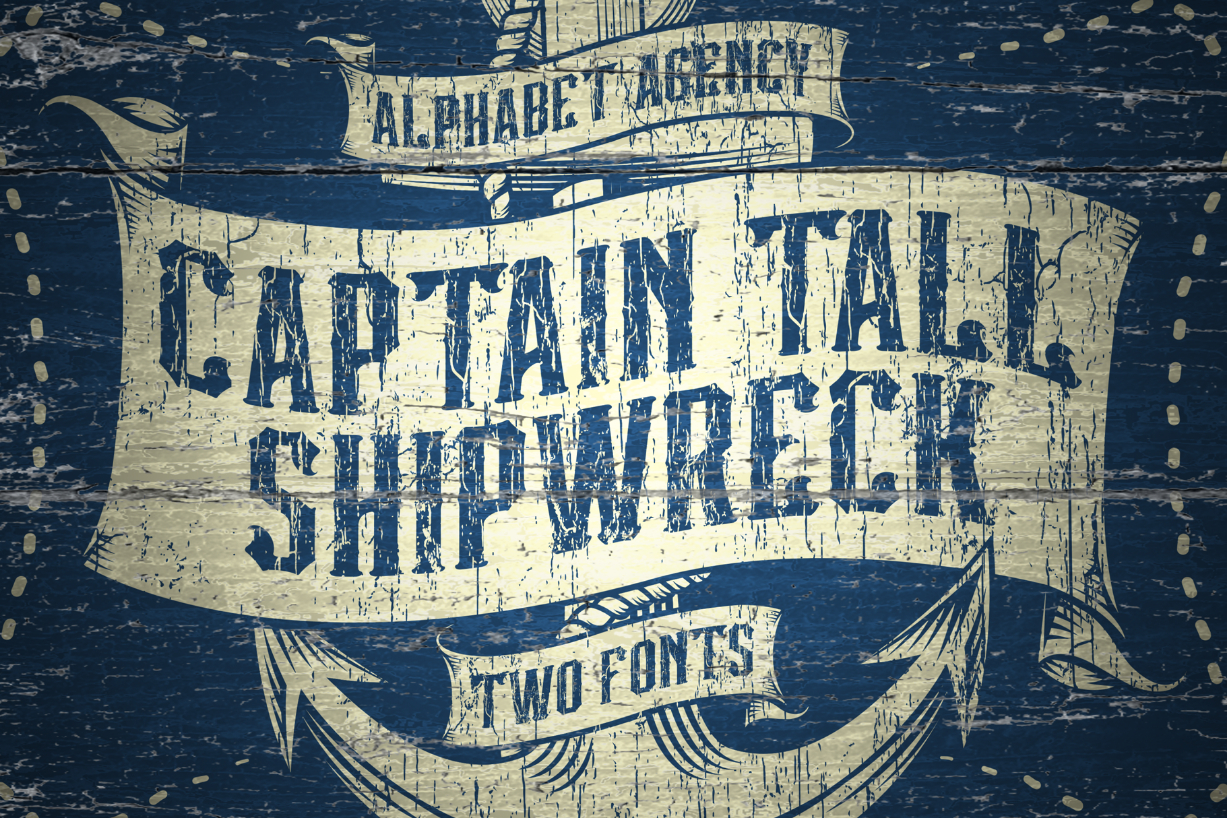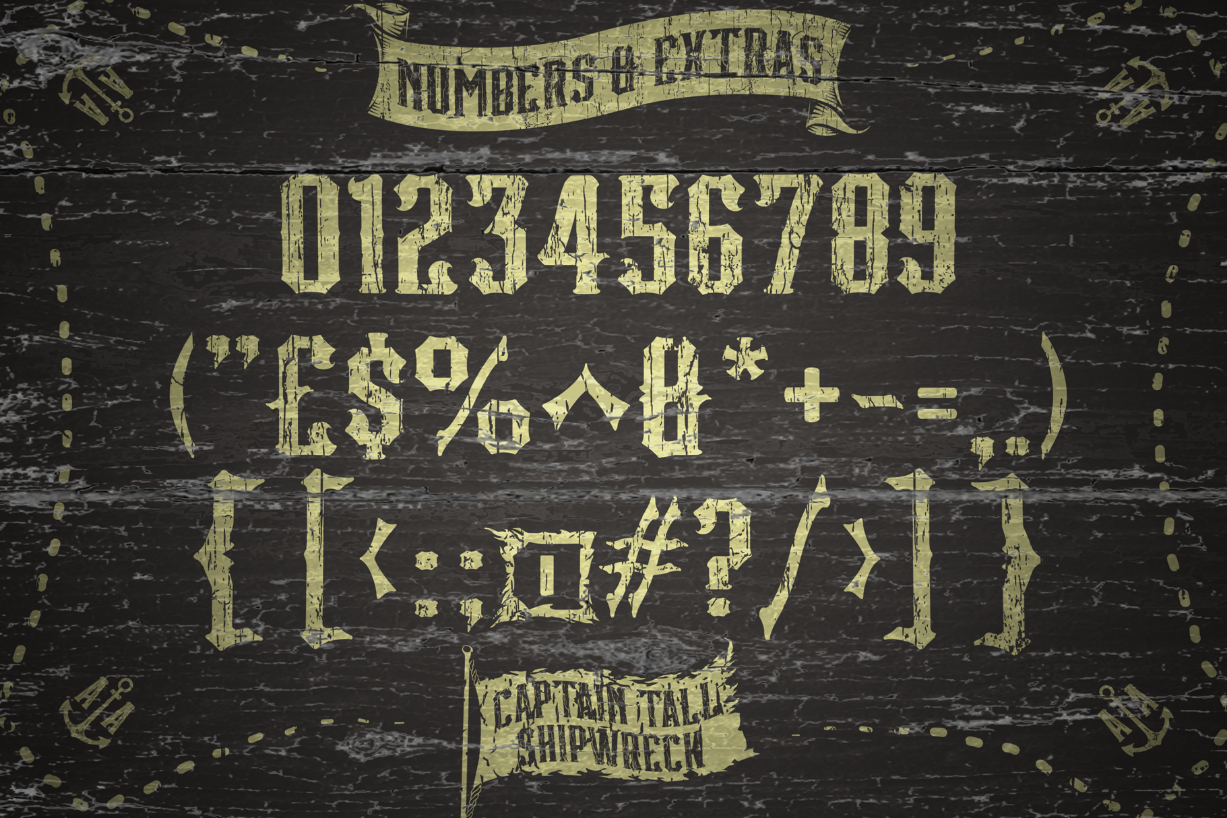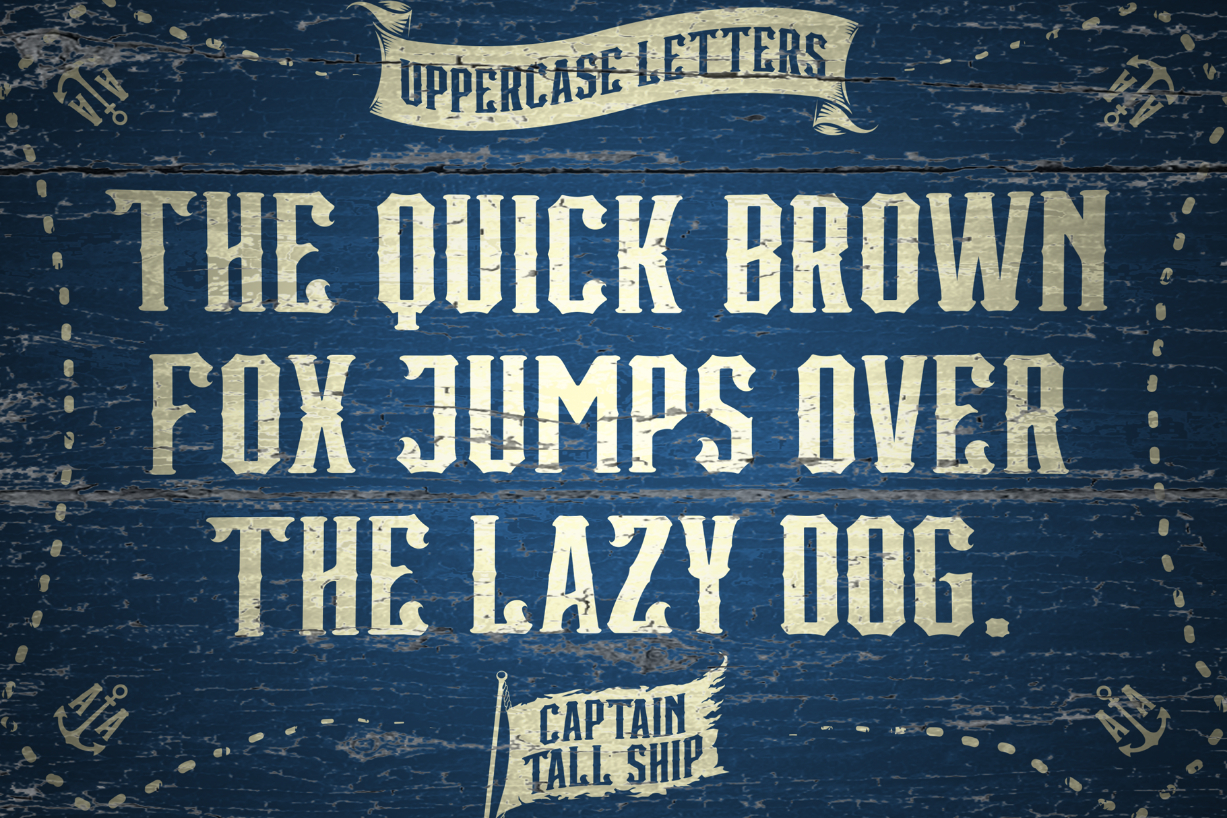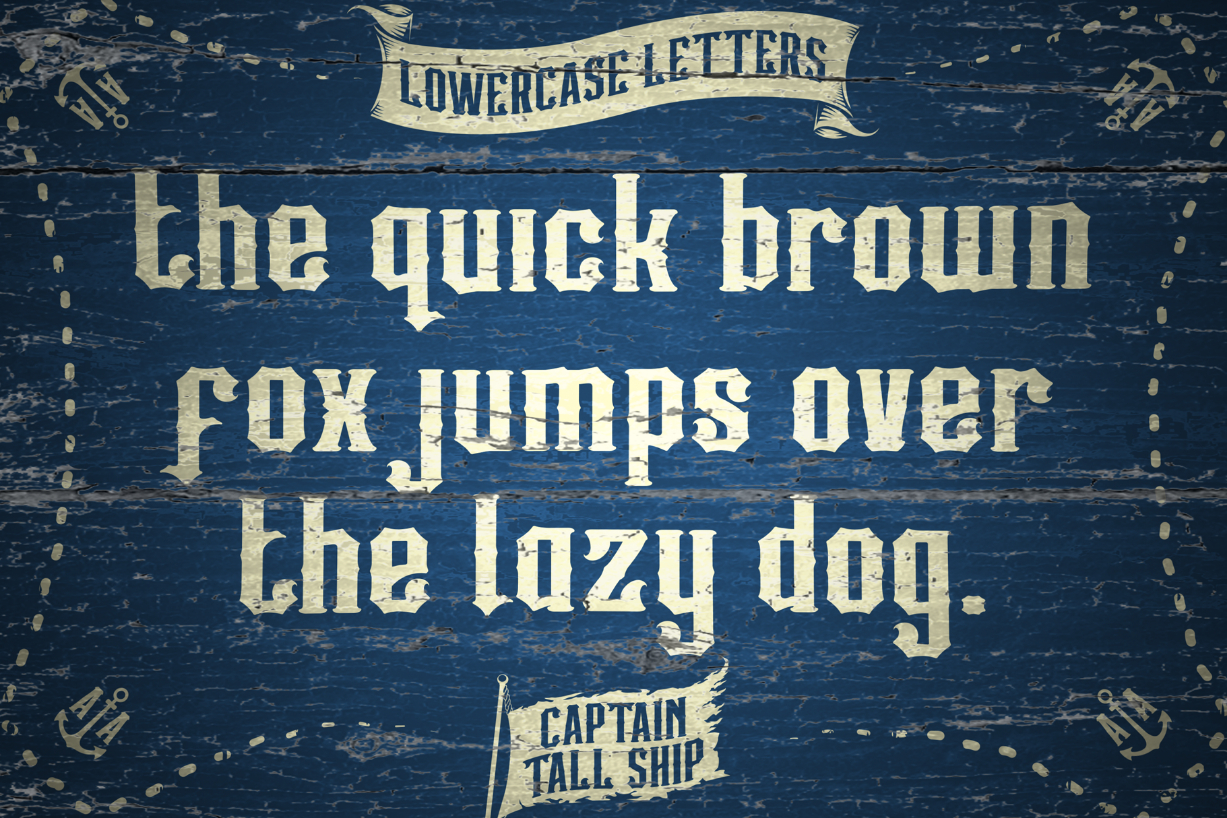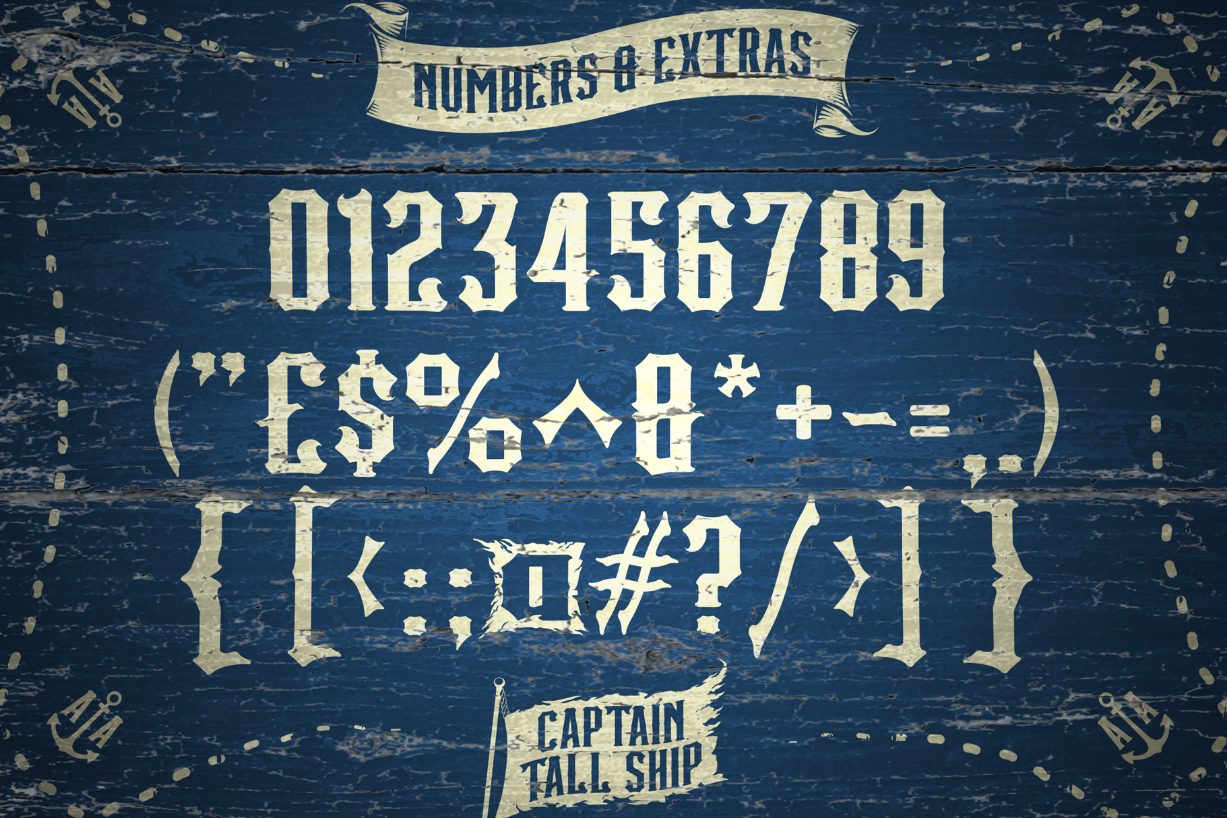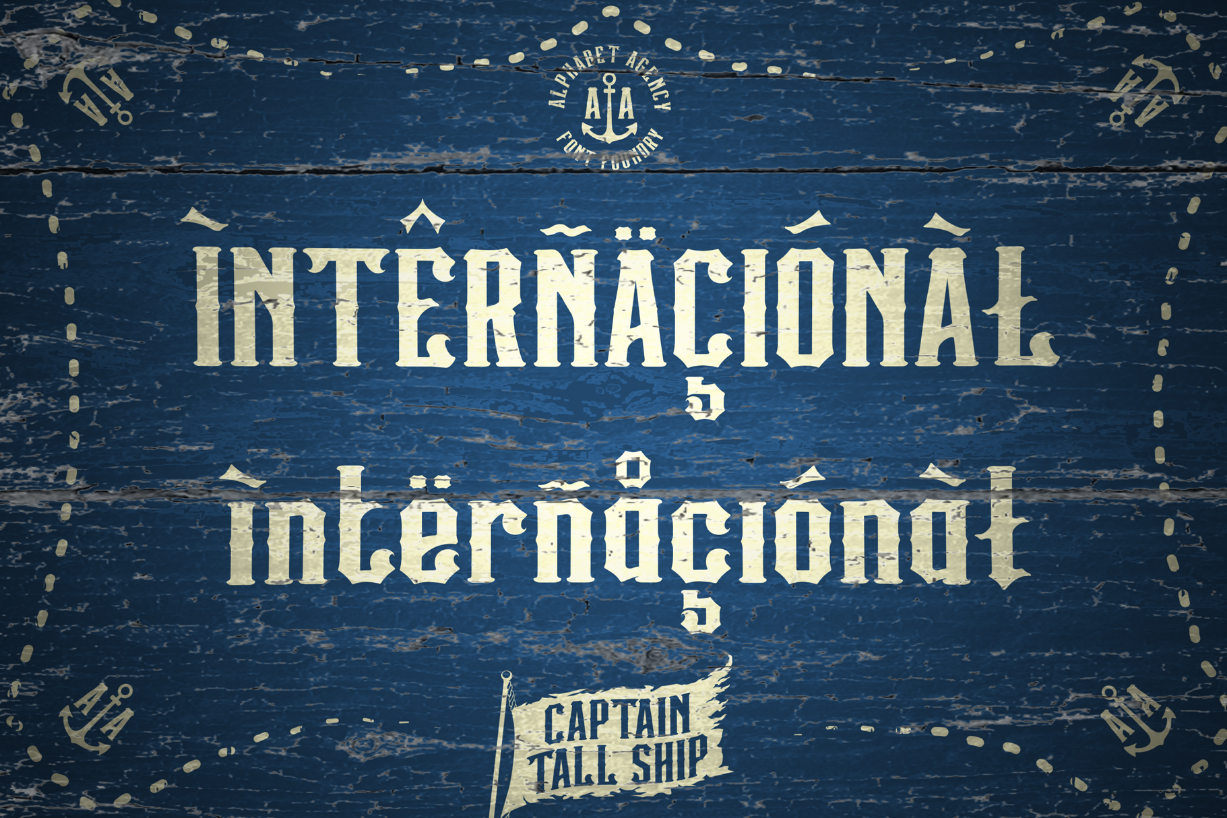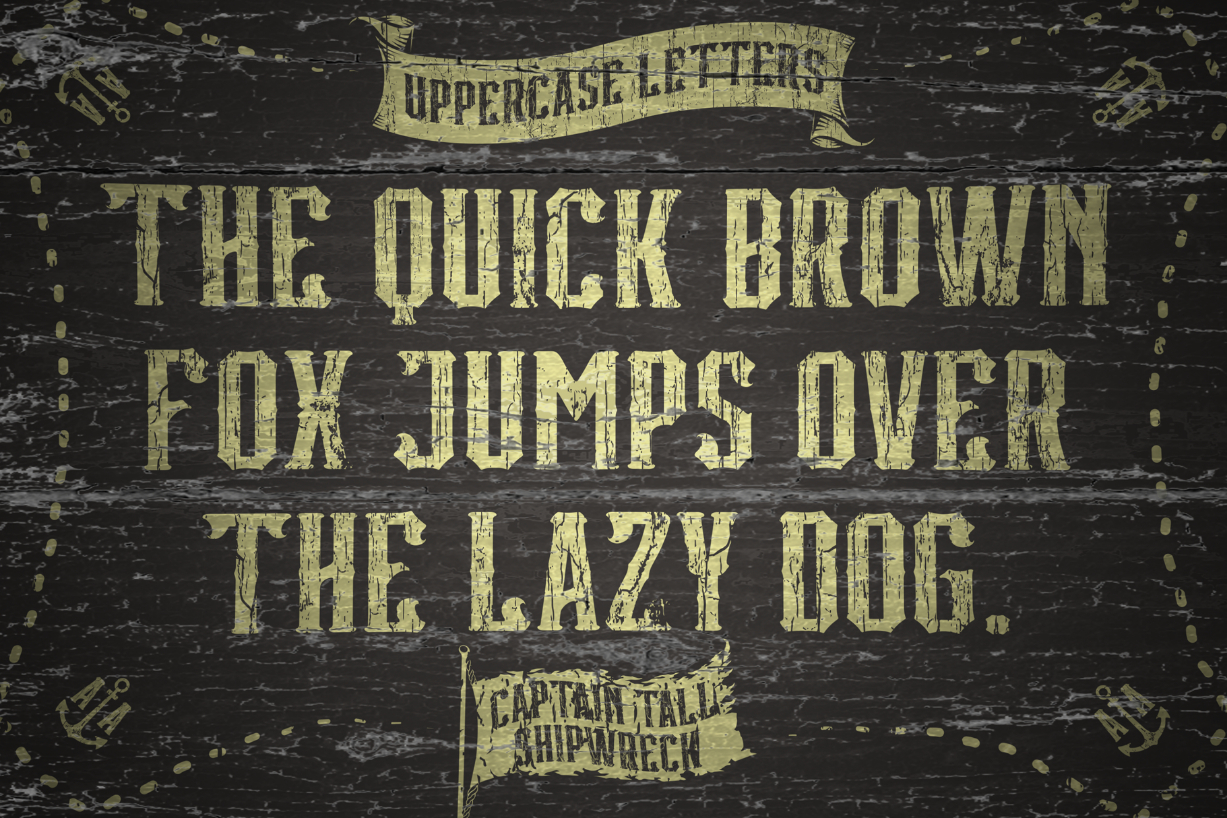
Captain Tall Ship Font
About Captain Tall Ship Font
Captain Tall Ship is a cool, assertive and uniquely designed blackletter font. Add it confidently to your favorite creations and let yourself be amazed by the outcome generated.